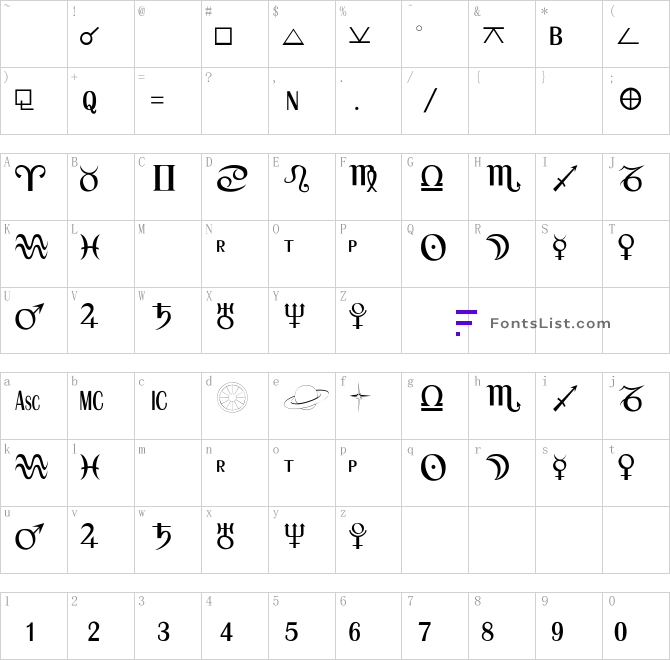
Astro-SemiBold.ttf is a very beautiful artistic font, Astro-SemiBold.ttf is widely used in the design and printing of various books and pictures,Astro-SemiBold.ttf has a strong visual impact,Astro-SemiBold.ttf is a commonly used font in newspapers, magazines and books, and is used in posters, e-commerce Poster design, store design, logo design, font design and other fields.Astro-SemiBold.